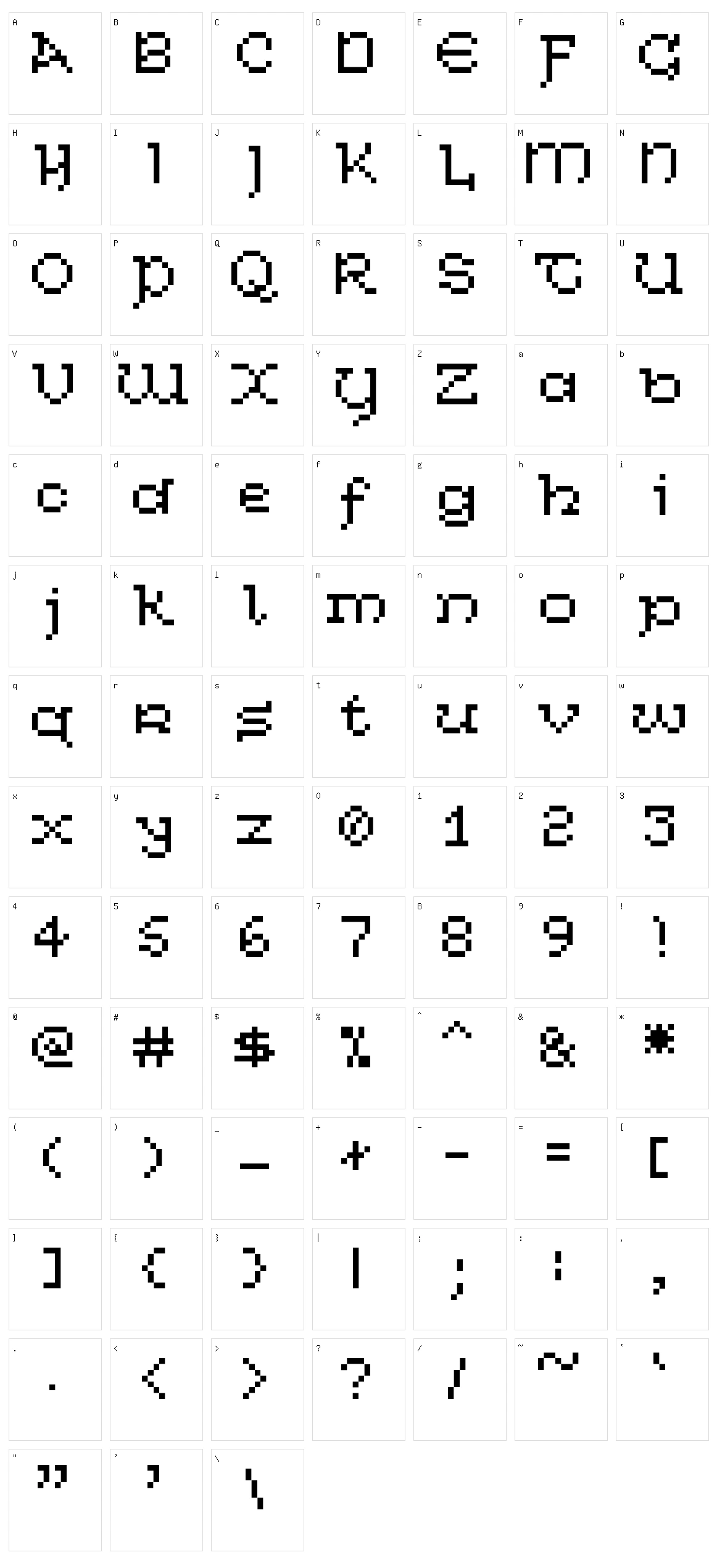
Celtic Bit
Designed by: Mirz123
Celtic-Bit Pixel Font
Font designed and created by Mirz (Michelle Lehmann)
This package contains 3 fonts. The main Celtic-Bit font which
was created to replicate the brush strokes used in medieval/
calligraphic writing. The second is Celtic-Bit Thin, which
is simply the same font, but with a more traditional pixel-
font look. The last font is Celtic-Bitty which is a smaller
condensed version of the font--the difference being that some
letters have been replaced with more easily-read modern versions
of the renditions.